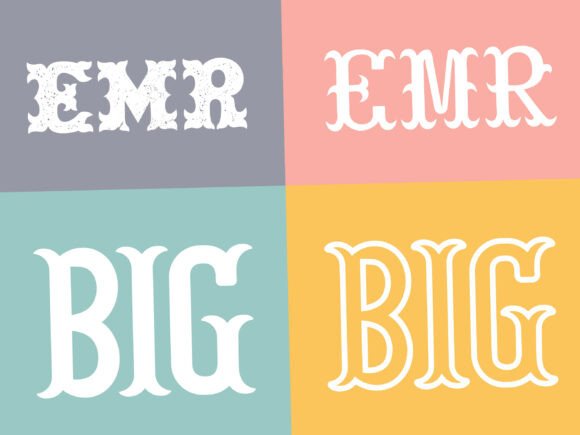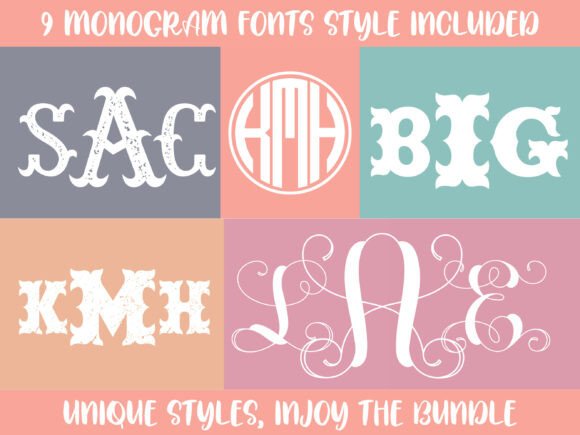
Introduction to Monogram Bundle Font
As you sit at your desk, surrounded by scraps of paper and scattered design ideas, the blank canvas stares back at you. You’re on the hunt for that perfect font to elevate your next creative project. And then, it hits you – the Monogram Bundle Font, a treasure trove of typographic styles that blend classic charm with modern flair.
This isn’t just any ordinary font collection. With eight distinct styles to choose from, you’ll be spoiled for choice. From distressed grunge textures to elegant interlocking scripts, every option is designed to bring a touch of sophistication to your design. Whether you’re a wedding stationer, apparel designer, or social media marketer, the Monogram Bundle Font is the ultimate design resource that will take your projects to the next level.
Key Features of Monogram Bundle Font
- High-quality design resource ideal for creative projects, including logos, branding, and packaging.
- Includes a range of customizable monogram designs with transparent background for easy integration into any design.
- Unique characteristics include intricate details, elegant typography, and a range of stylish monogram designs.
- Perfect for designers, artists, and creatives looking for a high-quality design resource to elevate their projects.
Honest Review: Monogram Bundle Font
As a designer, I’m always on the lookout for high-quality design resources to enhance my creative projects. The Monogram Bundle Font caught my eye with its sleek and modern aesthetic.
- Available in multiple styles, including uppercase and lowercase letters
- Includes a range of monogram shapes and sizes
Monogram Bundle Font
The Monogram Bundle Font is a high-quality design resource that offers a wide range of stylish monogram fonts perfect for various creative projects. This versatile font is available for free download, making it an ideal choice for designers and artists looking to elevate their work.
For optimal results, use the Monogram Bundle Font on a transparent background to create a seamless and modern look. Experiment with different font combinations and sizes to add depth and visual interest to your design.
The Monogram Bundle Font is ideal for:
- Wedding invitations and stationery.
- Personalized gifts and merchandise.
- Business branding and marketing materials.
2. Elegant Monogram Font
Elegant Monogram Font is a beautiful, high-end design resource ideal for creating sophisticated and luxurious branding. It features intricate details and is available for free download. This font is perfect for designers working on high-end creative projects and is a great alternative to Monogram Bundle Font for those seeking a more refined look.